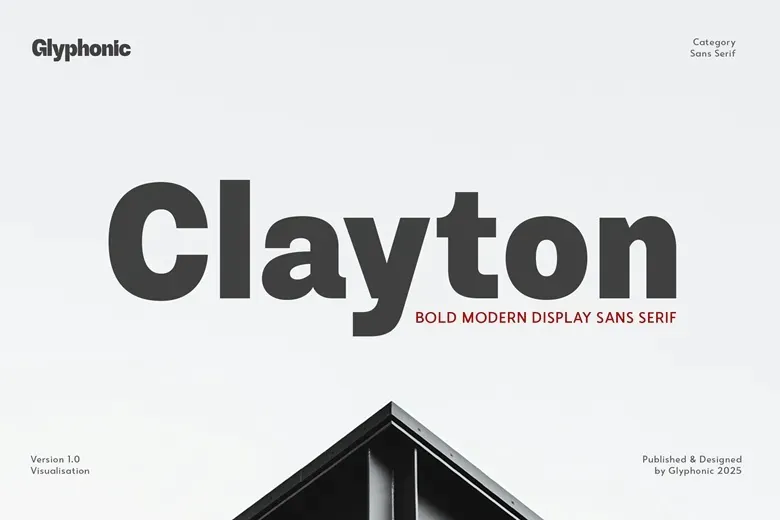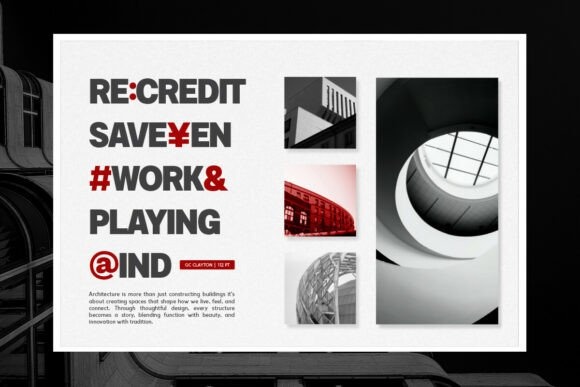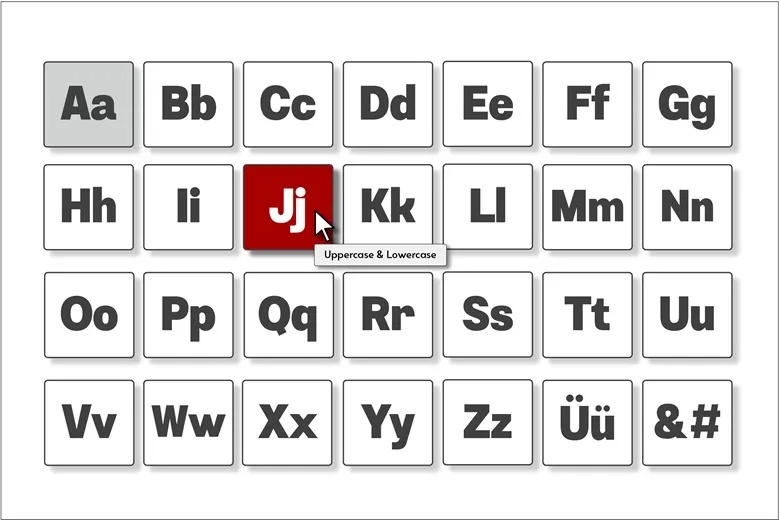
Clayton Font
Clayton is a modern and sophisticated sans serif typeface crafted for high-impact visual design. With its elegant structure and high contrast letterforms, Clayton is perfect for headlines, branding, logos, packaging, and editorial layouts. Its sleek, contemporary style adds a refined touch to any project, making it ideal for fashion, lifestyle, and art-focused designs. Whether used for bold branding or minimalist elegance, Clayton brings versatility and timeless appeal.